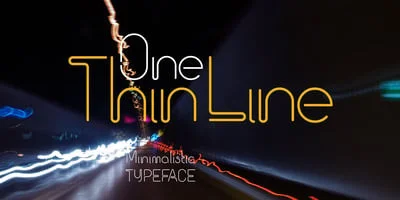
One Thin Line Font
The One Thin Line Font is a superb choice for projects that require a minimalist, elegant, and contemporary aesthetic. Its fine, monolinear design gives it a sense of precision and sophistication, making it perfect for modern branding, architectural layouts, and high-tech product presentations. This font is especially effective for designs that need to convey a sense of lightness and clarity, such as magazine headers, fashion editorials, and clean user interfaces. The One Thin Line Font adds a layer of subtle grace to any project, ensuring your message is delivered with poise and a whisper of modern style.
What makes this font so exciting is its exceptional ability to create a significant impact with minimal effort. The One Thin Line Font is designed with a keen eye for negative space and balance, where the thinness of the line itself becomes a key part of the design. This creates a visually light and airy feel that is both calming and highly modern. Despite its delicate appearance, the font maintains excellent legibility, making it suitable for both bold headlines and subtle text elements. It’s a typeface that works hard to enhance your design without overwhelming it, making it a valuable tool for anyone seeking a clean and refined look.
The One Thin Line Font family often includes a variety of styles to give you more creative flexibility. While its single, distinct weight is its most notable feature, the family can also include a slightly bolder version for added emphasis or an italic variant for subtle flair. This range of options allows you to build a cohesive typographic system that is consistent across all your materials. The One Thin Line Font is an excellent opportunity to explore these different styles and see how they can work together to create a powerful and unified brand identity.
By choosing the One Thin Line Font, you’re opting for a typeface that embodies simplicity, modernity, and effortless elegance. It’s a font that works tirelessly to ensure your projects are not only beautiful but also highly effective at communicating a message of quality and contemporary sophistication.